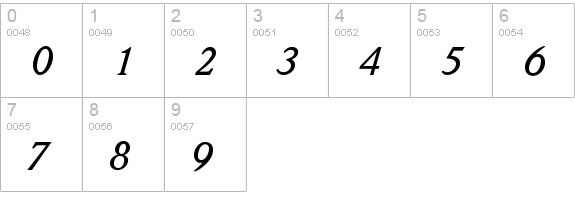
Weidemann* Medium Italic Font Details
Weidemann* Medium Italic is a balanced, medium-weight, italic variant in the Weidemann* typeface family \xE2\x80\x94 well suited to sub-headlines, navigation, and balanced editorial work.
Weidemann* Medium Italic is a versatile and striking font that captures elegance and sophistication. Its medium weight adds a touch of boldness, making it perfect for both headlines and body text. The italic style adds a sense of movement and fluidity, giving your designs a dynamic and contemporary feel. This font features clean lines and balanced proportions, making it highly legible and easy to read. The medium weight strikes the perfect balance between impact and subtlety, making it suitable for a wide range of designs, from branding materials to editorial layouts. Weidemann* Medium Italic combines classic letterforms with a modern twist, creating a timeless yet contemporary aesthetic. Its unique design elements make it stand out from the crowd, making it an excellent choice for any design project that requires a touch of sophistication. But what makes Weidemann* Medium Italic even more appealing is that it is freely available to download at FontsMarket.com. You can enhance your designs with this beautiful font without any cost. Whether you're a professional designer or just starting out, having access to high-quality fonts for free is a game-changer. So why wait? Download Weidemann* Medium Italic from FontsMarket.com today and elevate your designs to the next level. With its elegant and versatile style, this font is sure to make a lasting impression on your audience.